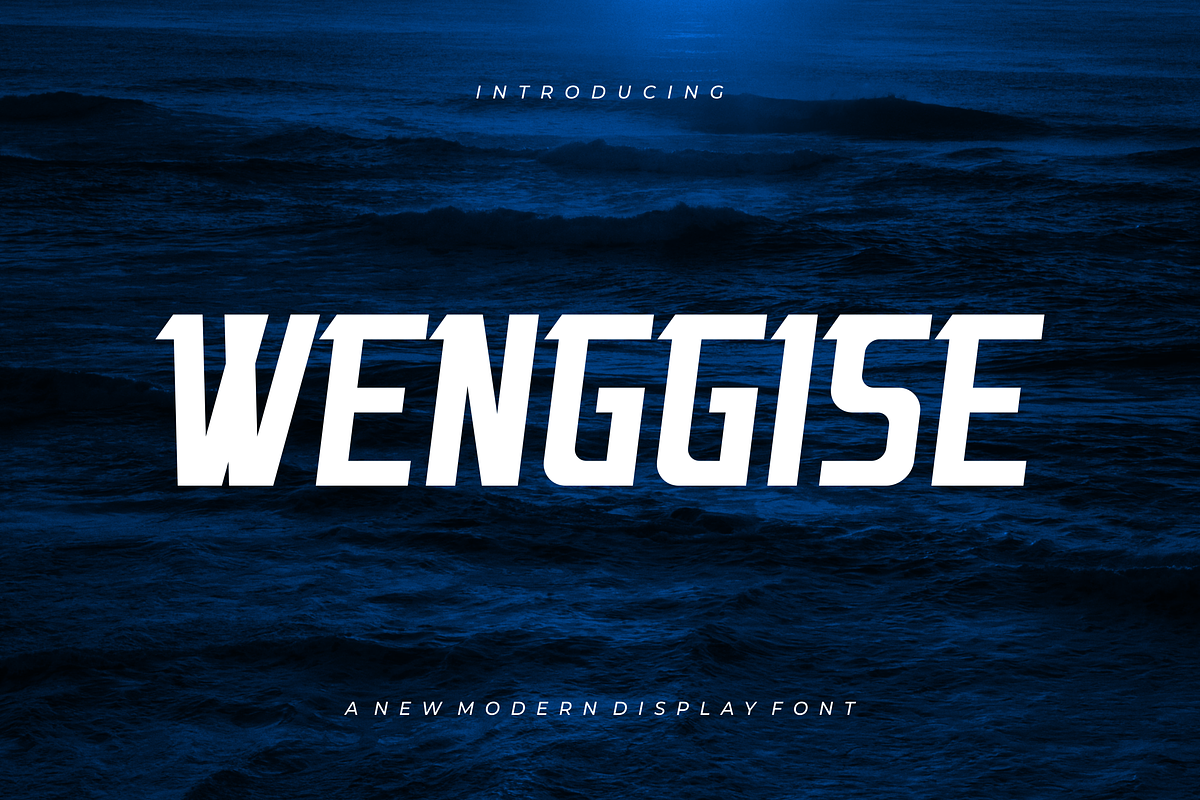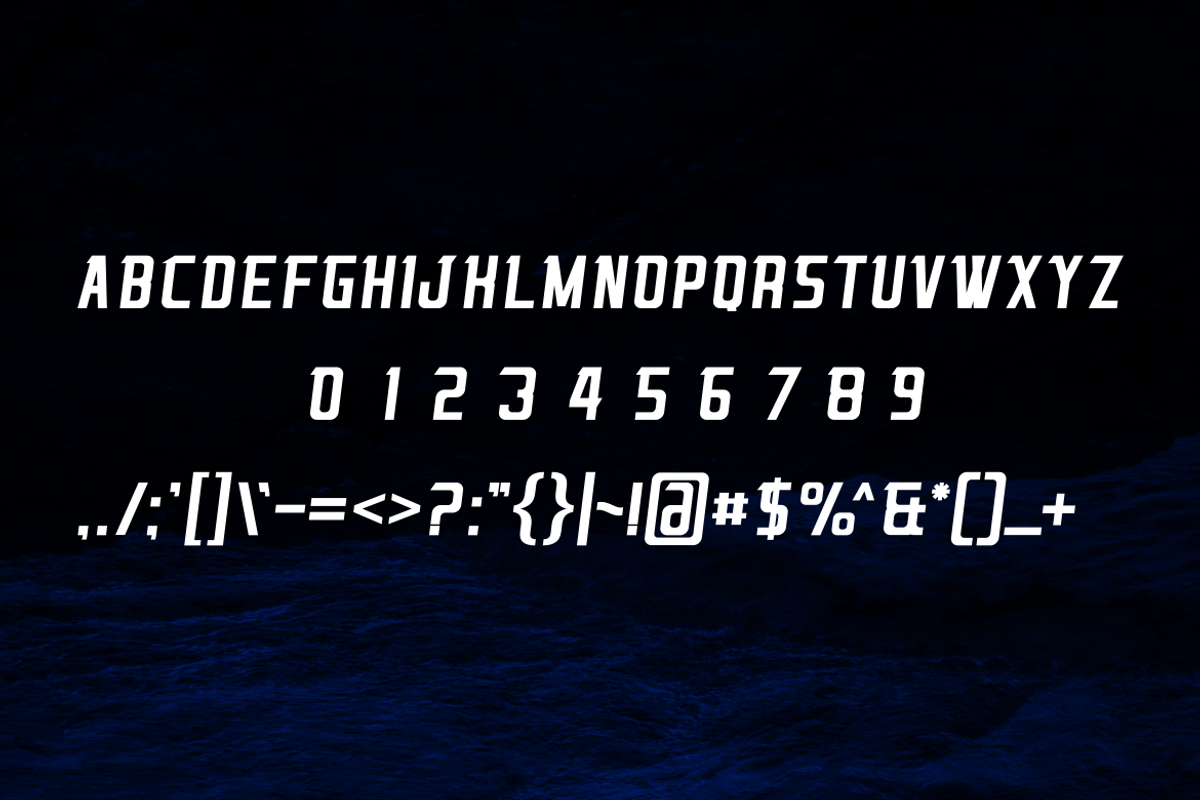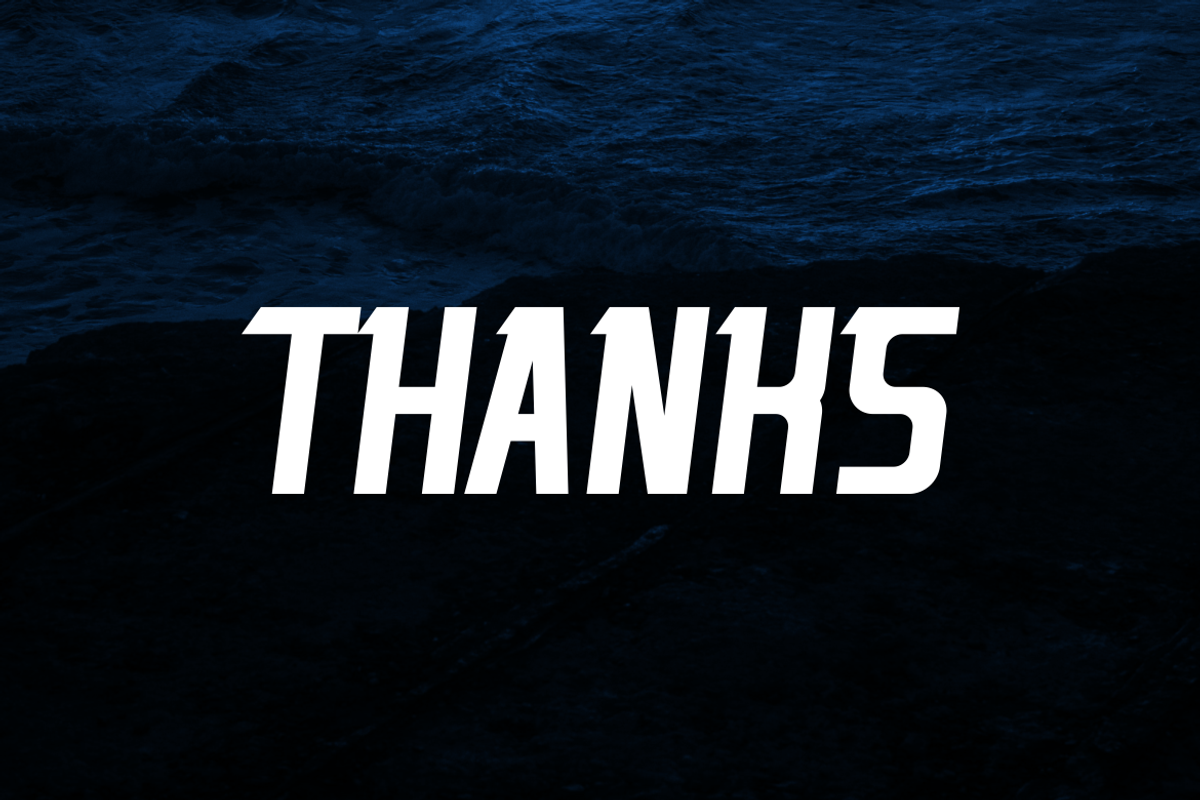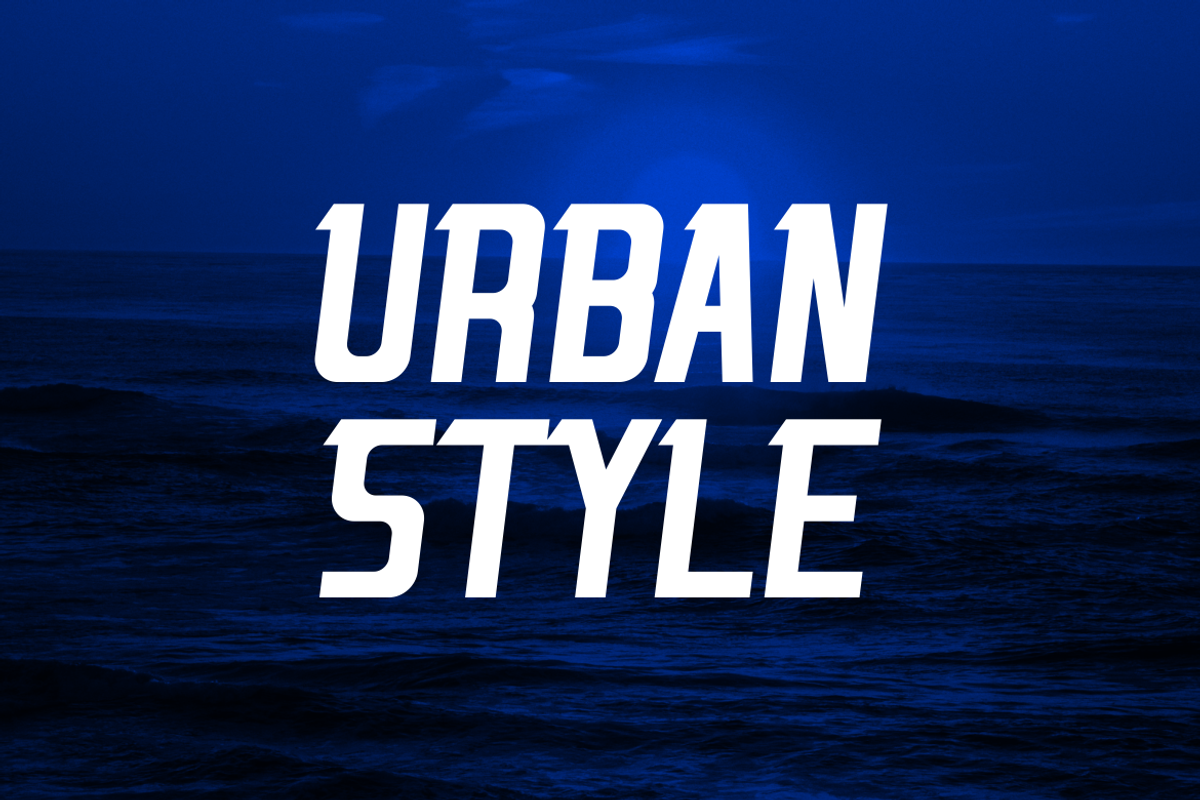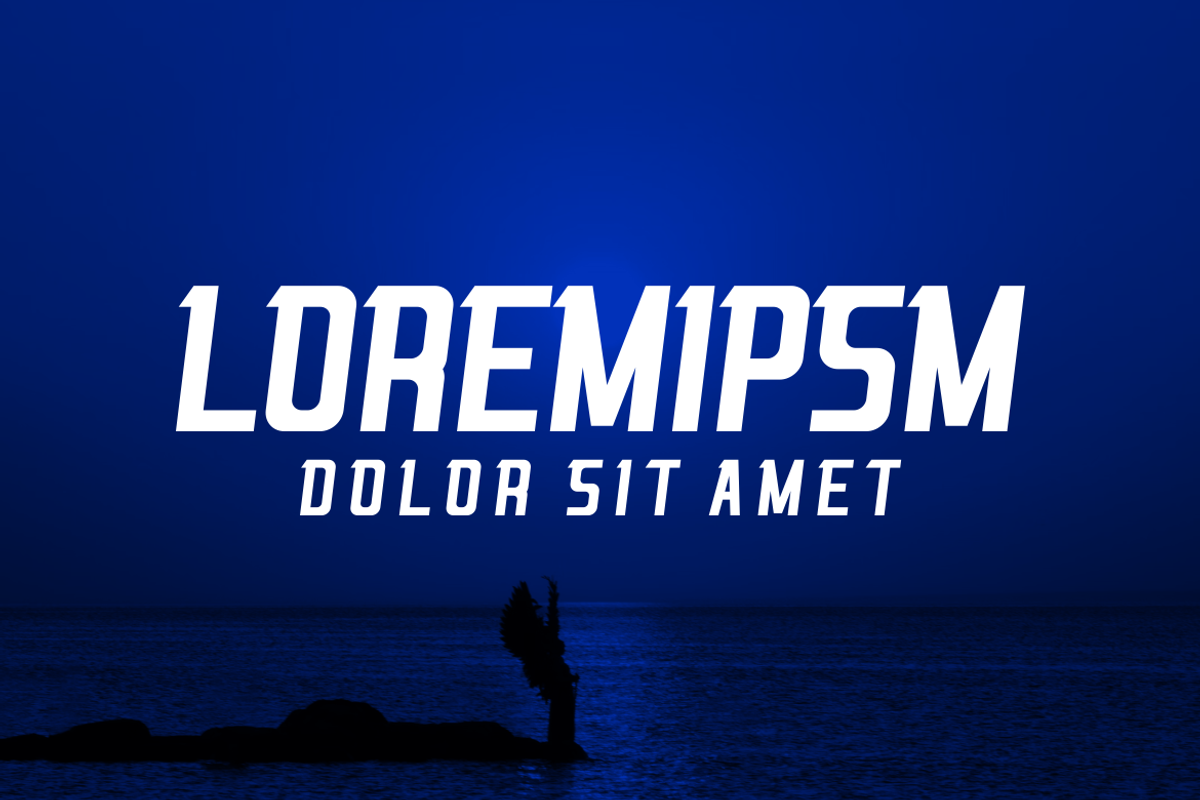
Wenggise - Font
- Modern Font is a bold and authentic display font. The font is suitable for any branding project like logo, t-shirt printing,, and many more. outstanding in a wide range of contexts.